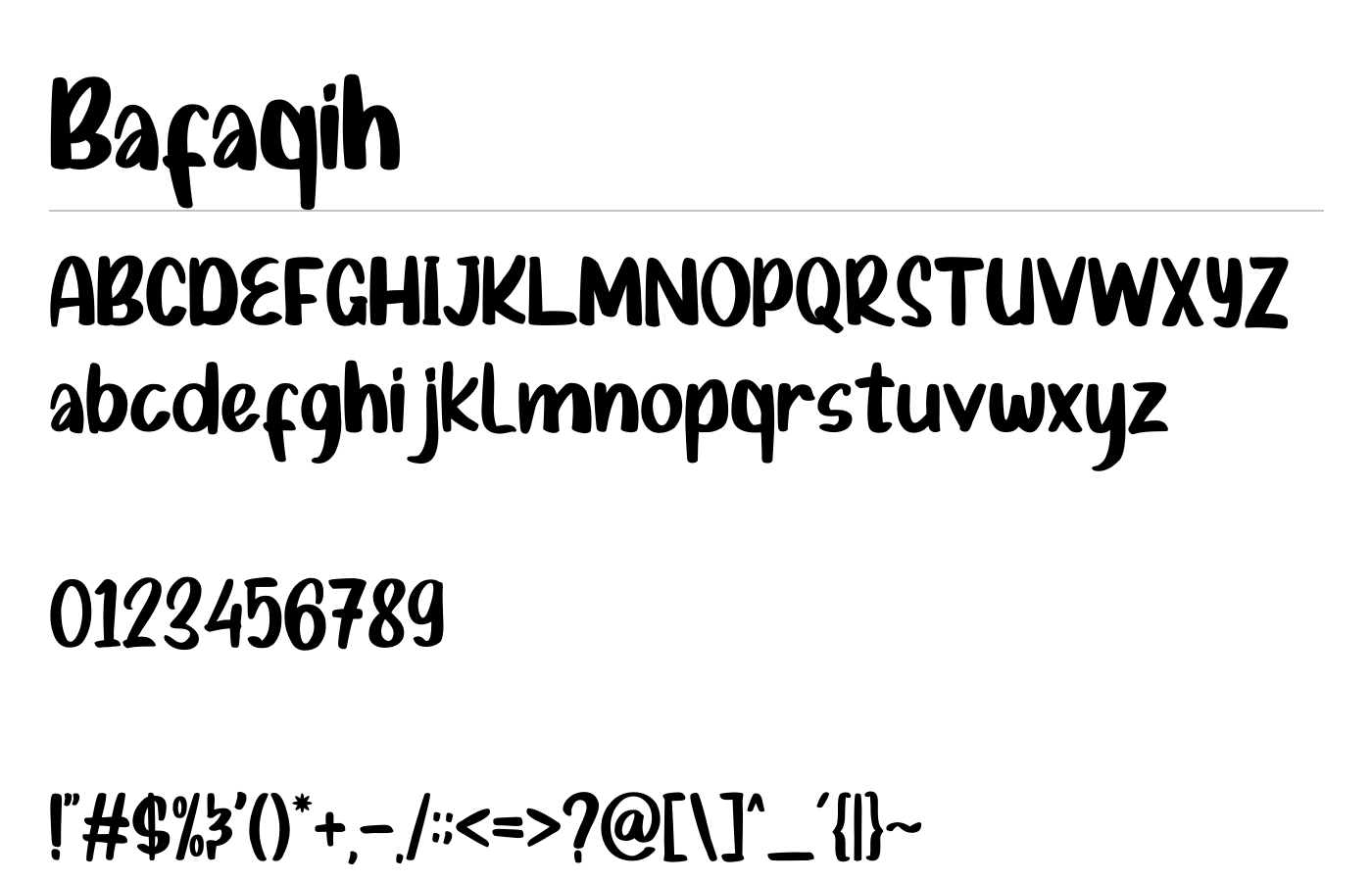
Bafaqih is a playful, hand-drawn sans serif font with bold, slightly irregular strokes that give it a lively and informal personality. Its rounded, quirky letterforms and consistent weight make it ideal for creative projects, casual branding, and eye-catching headlines that want to convey friendliness and approachability. This font works well where a fresh, personal touch is needed, such as in children’s books, artistic posters, or fun packaging designs.
Bafaqih Font
About Bafaqih Font
| Font family | Bafaqih Font |
| Designer | Moch Zaenal Abidin |